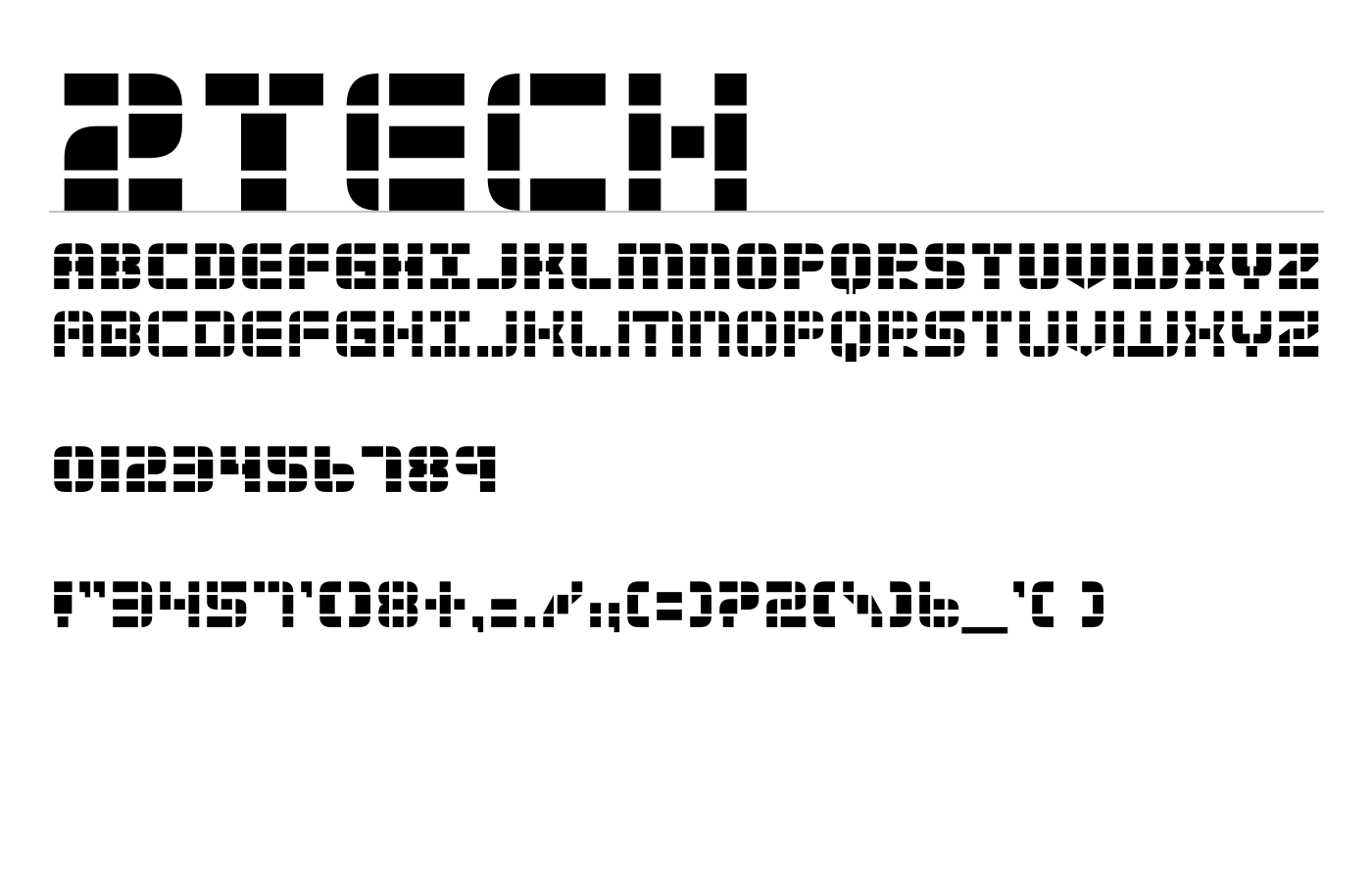
2Tech Font is a bold, geometric sans serif with a modular, grid-based design that creates a futuristic and tech-inspired feel. Its uniform stroke weight and blocky letterforms give it a strong, modern personality perfect for technology branding, digital interfaces, and eye-catching headlines. This font works best in display settings where a distinctive, sci-fi aesthetic is desired.
2Tech Font
About 2Tech Font